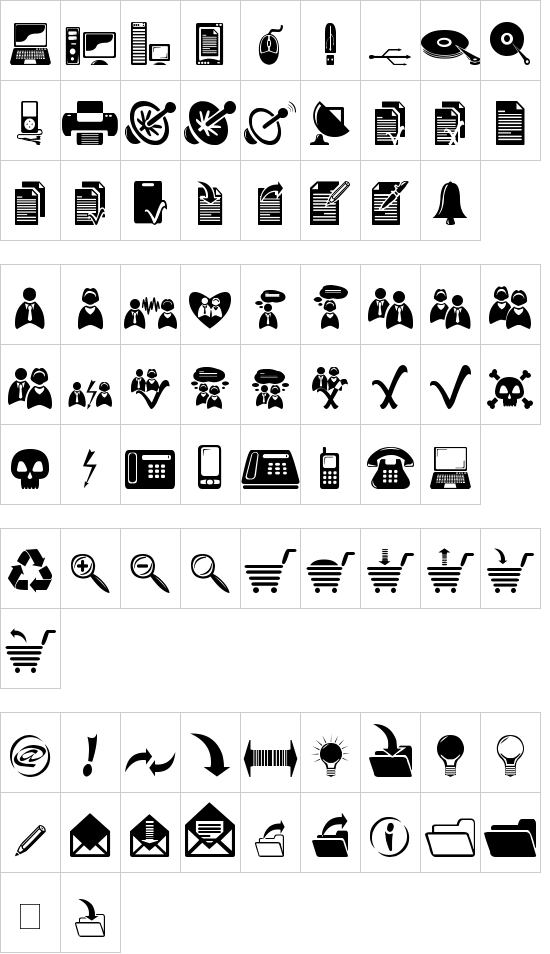
GADing3
GADing3 is a dingbat font offering a set of decorative picture glyphs in place of standard letters. Each key delivers a small icon or ornament, giving you ready-made graphics to drop into a layout rather than text.